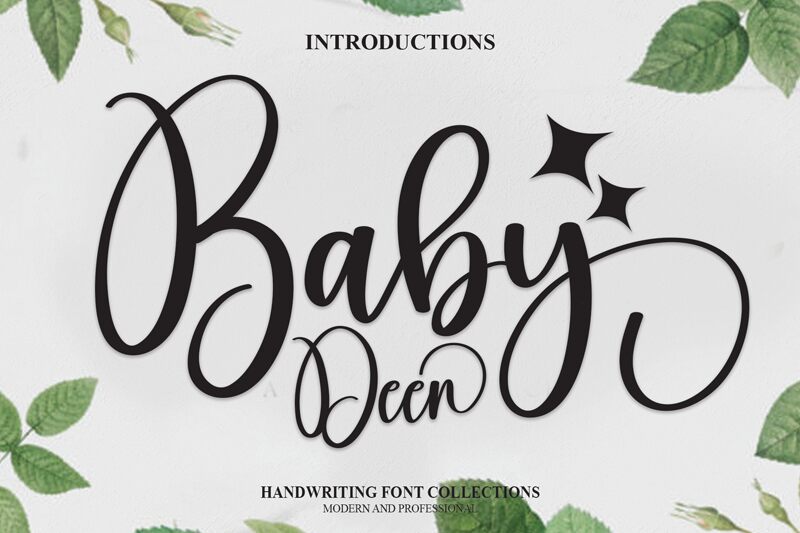
Baby Deer
Baby Deer is a stunning calligraphy font designed by scratchones. With its semi-light weight, it exudes elegance and sophistication in every character stroke. This font is perfect for wedding invitations, feminine branding projects, and any creative project that requires a touch of delicacy. The graceful curves of Baby Deer create a sense of effortless beauty, making it suitable for fashion magazines, luxury brands, and decorative titles. With its versatile style and subtle charm, Baby Deer will add a unique flair to any design project.
the latest style letters are perfect for wall displays, wedding invitations, social media post logos, advertisements, product packaging, product designs, labels, photography, watermarks, invitations, stationery, and any project that requires taste handwriting.